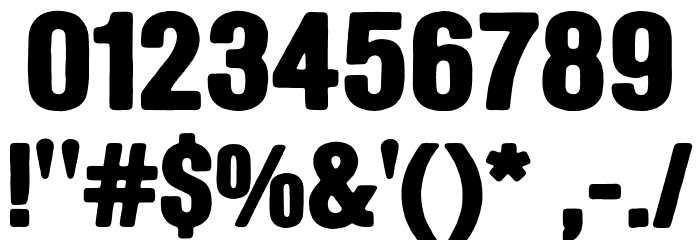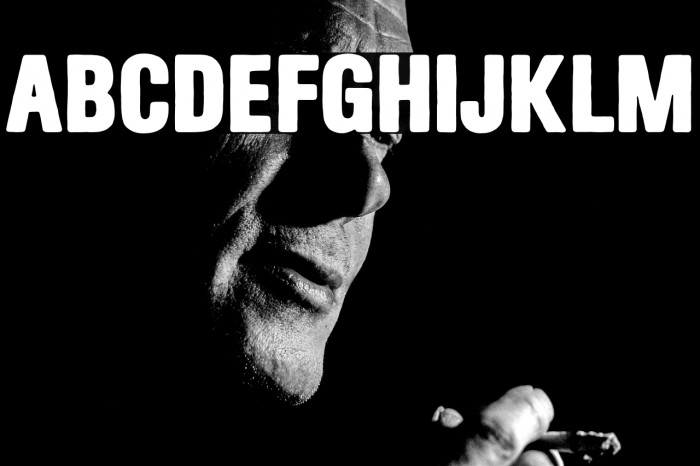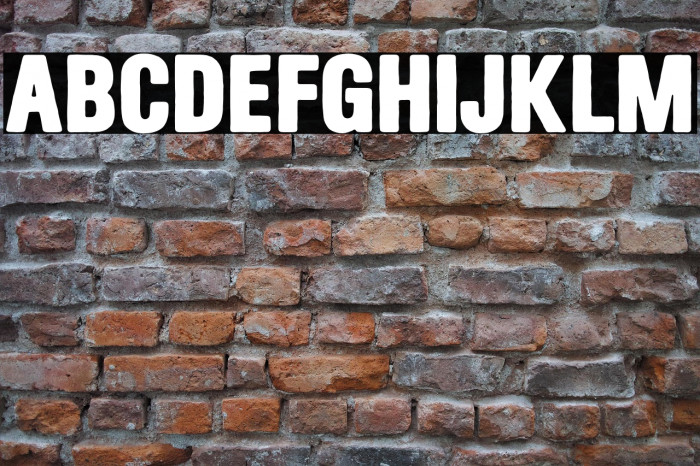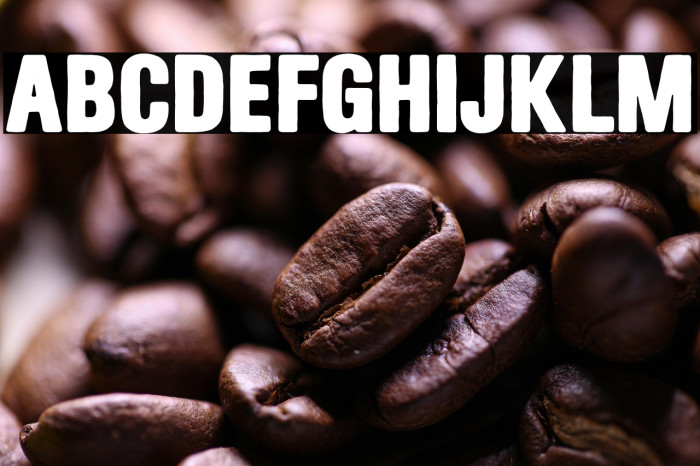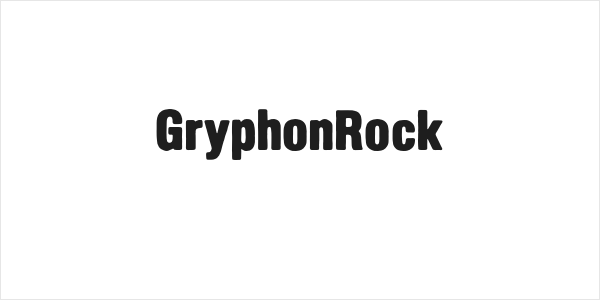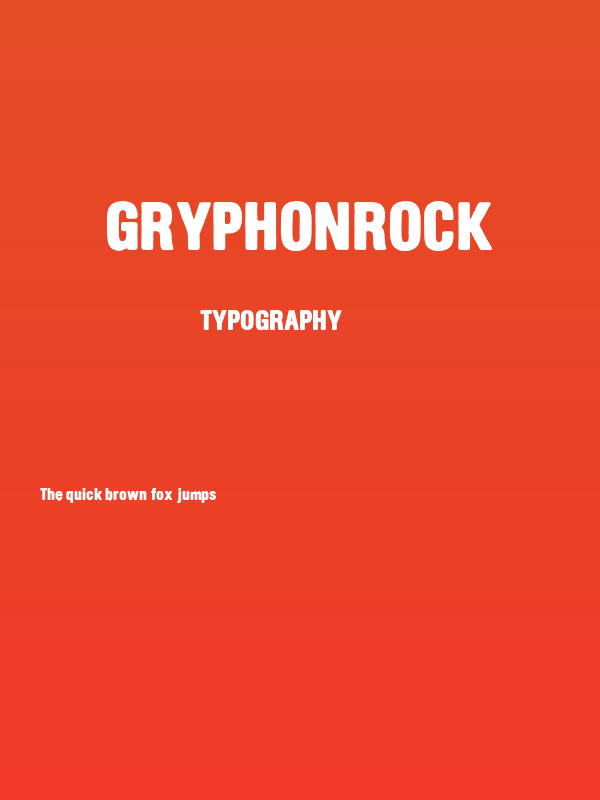
GryphonRock Font
GryphonRock Description
This bold and impactful font features thick, uniform strokes that convey strength and stability. The characters are well-defined with rounded edges, giving a slightly softened appearance to the otherwise robust design. The uppercase and lowercase letters maintain a consistent style, ensuring readability and coherence across different text sizes. The numerals and special characters are equally bold, making them stand out prominently. This font is ideal for making a strong visual statement, with its high contrast and solid presence.
| Proposed Projects | Ideal for headlines, posters, branding materials, and any project requiring a strong visual impact. |